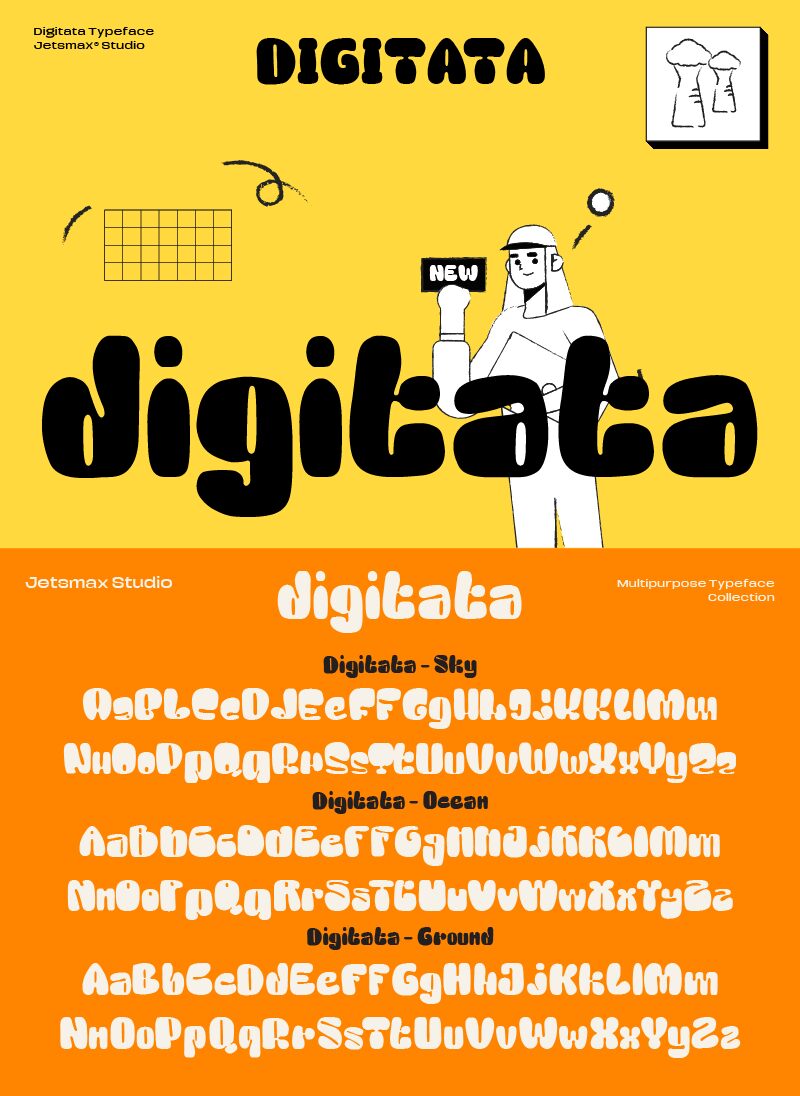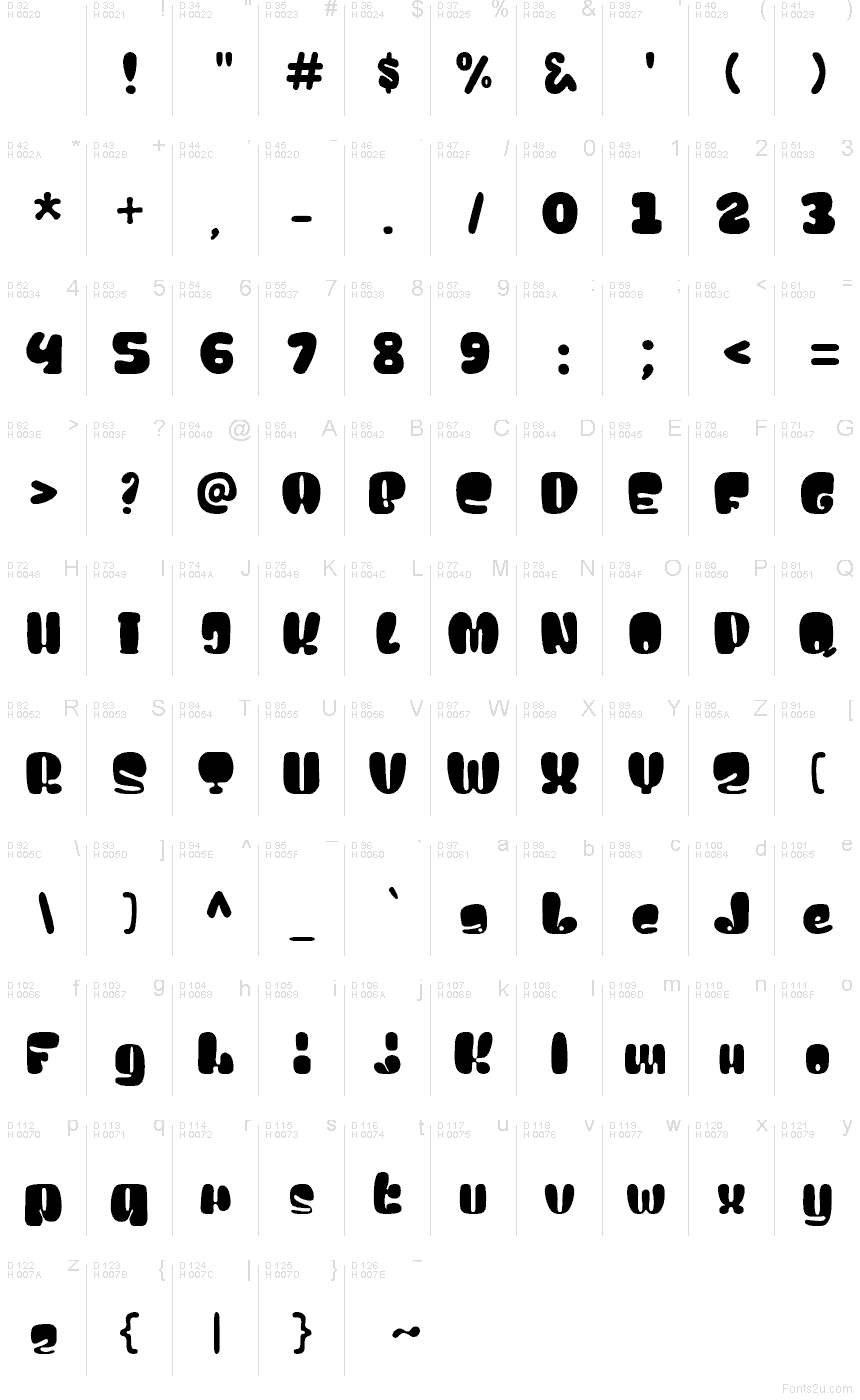
Digitata Sky
Digitata Sky font is a free cartoon font with chunky, inky shapes that feel like soft rubber stamps pressed onto paper. The letters are bold and rounded, but the playful little breaks and pinched counters keep it from turning into a plain bubble look—there’s a bouncy rhythm that reads friendly, not childish.
Using Digitata Sky works beautifully for kids’ game UI, sticker packs, comic titles, toy packaging, YouTube thumbnails, school event posters, playful app splash screens, and snack branding. Set it big so the quirky openings stay clear, and pair it with a clean geometric sans for body text to keep layouts crisp while this free font does the talking.